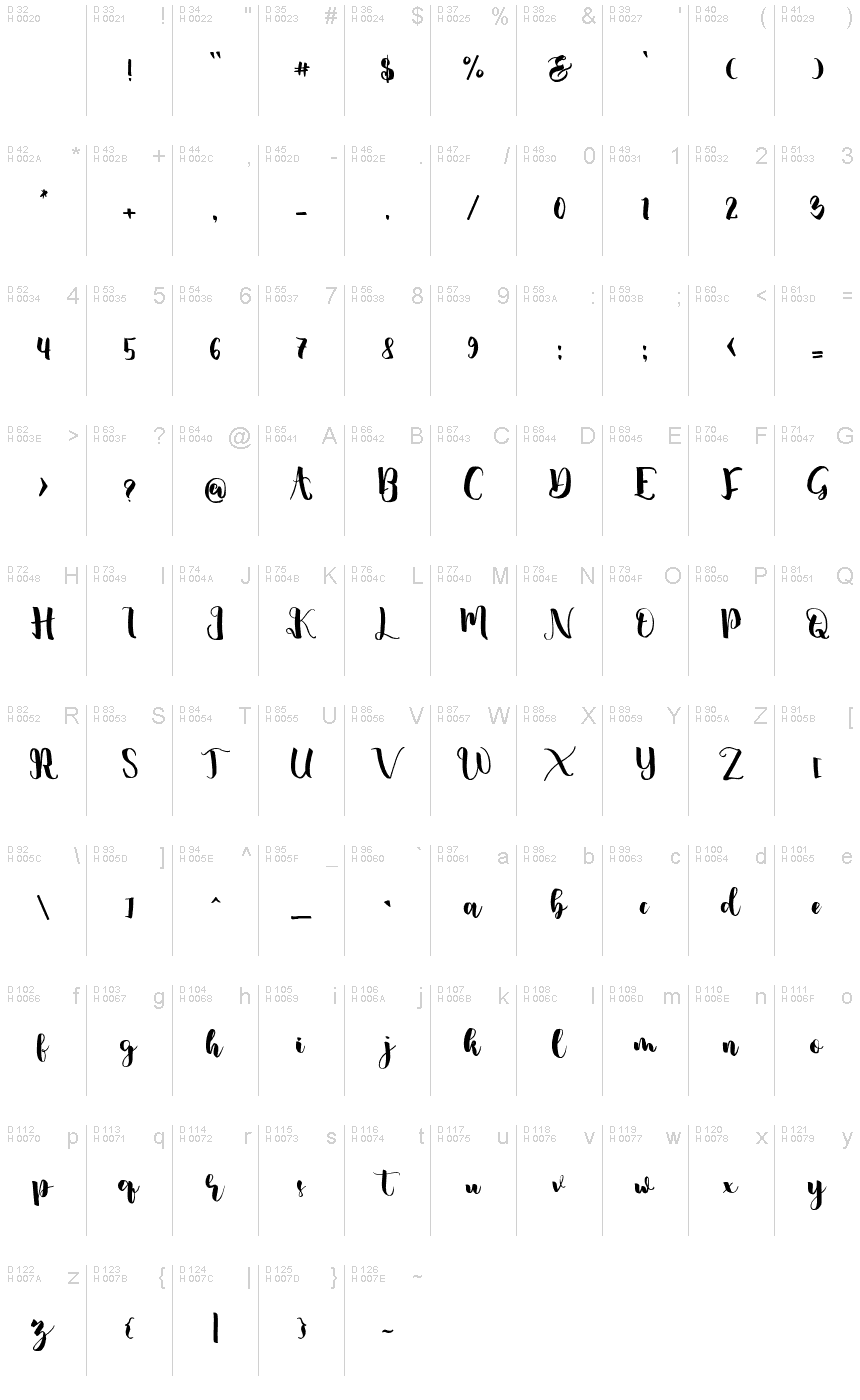
Mother
Mother, the newest brush font from Infontree, combines a classic, hand-lettered feel with modern twists that make it perfect for a wide range of creative projects. Its flowing curves and sharp angles give it an elegant yet versatile look, making it a great choice for branding, packaging design, social media graphics, and more. With its semi-bold weight and medium width, Mother is an excellent choice for everything from headlines to body copy. Whether you're creating wedding invitations or designing a new logo for your business, Mother will add just the right touch of sophistication and style to any project.